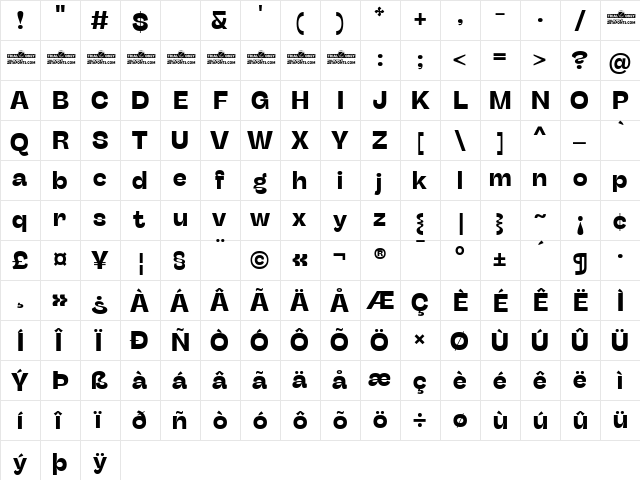
Stinger Fit Trial Bold
| Foundry | Studio Kmzero & Zetafonts |
| Designer | Cosimo Lorenzo Pancini |
Design Context for Stinger Fit Trial Typeface
Stinger Fit Trial offers clean, dependable letterforms without strong stylistic allegiance, making it a practical choice for designers who need flexibility. Its bold stroke weight gives it real presence on the page.